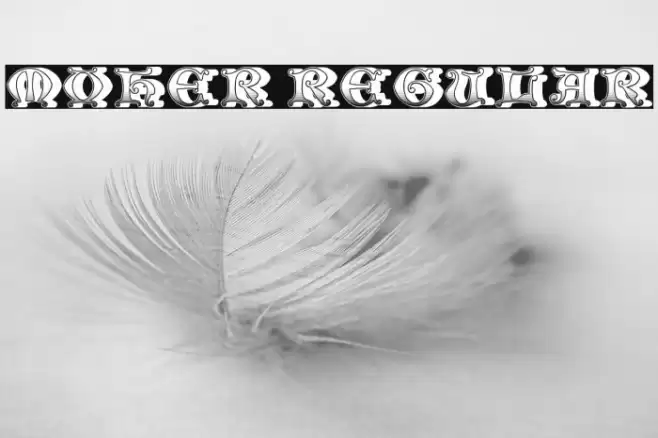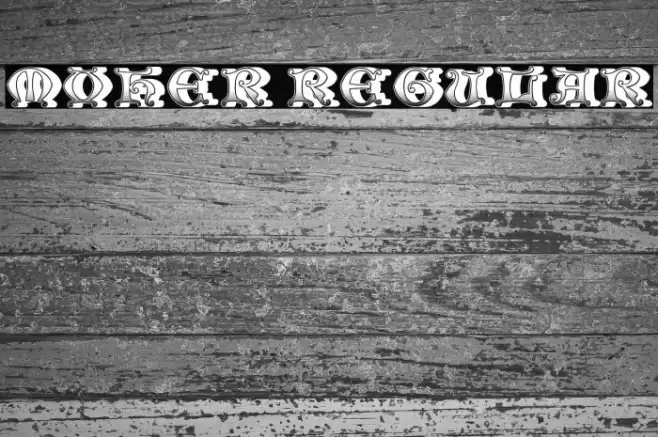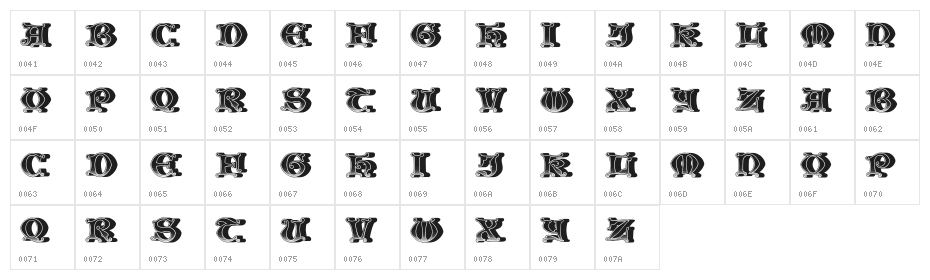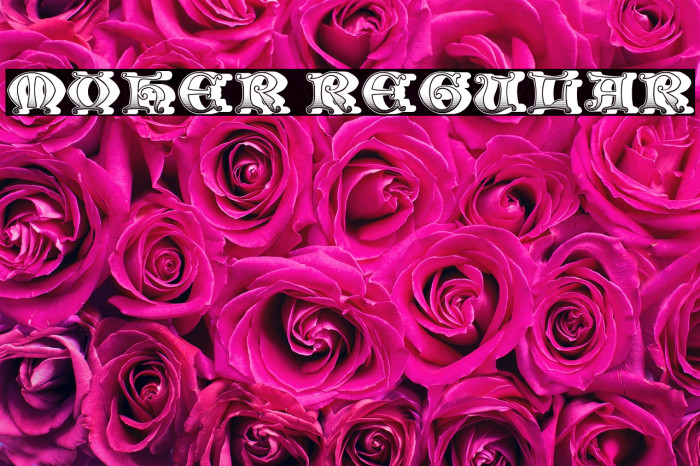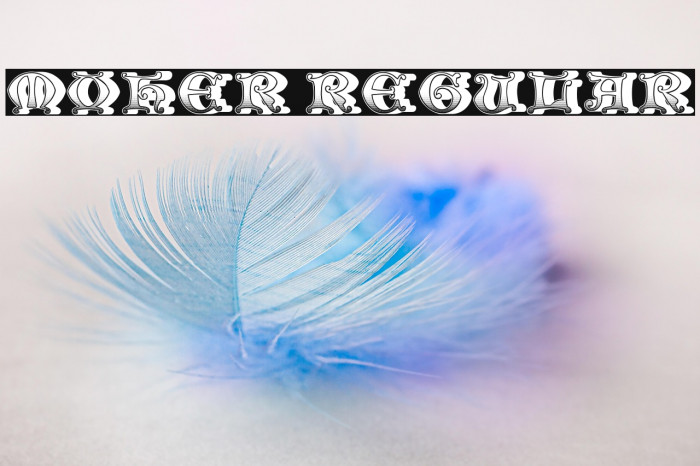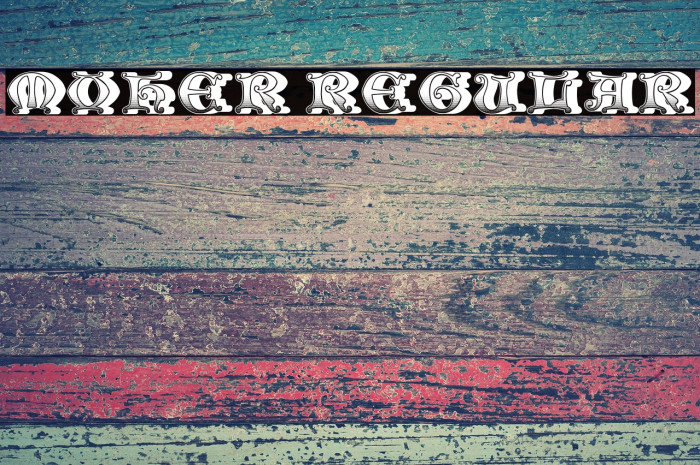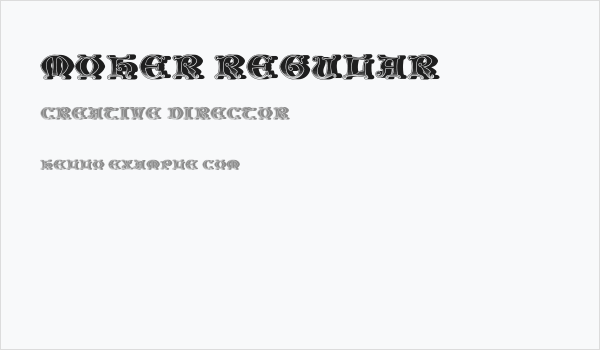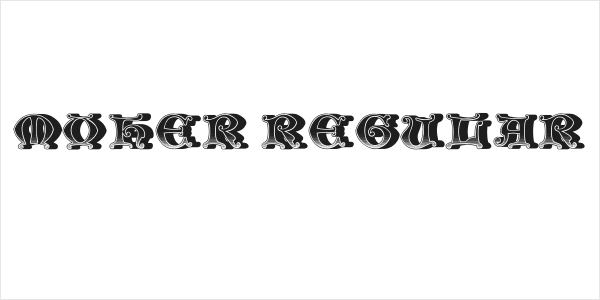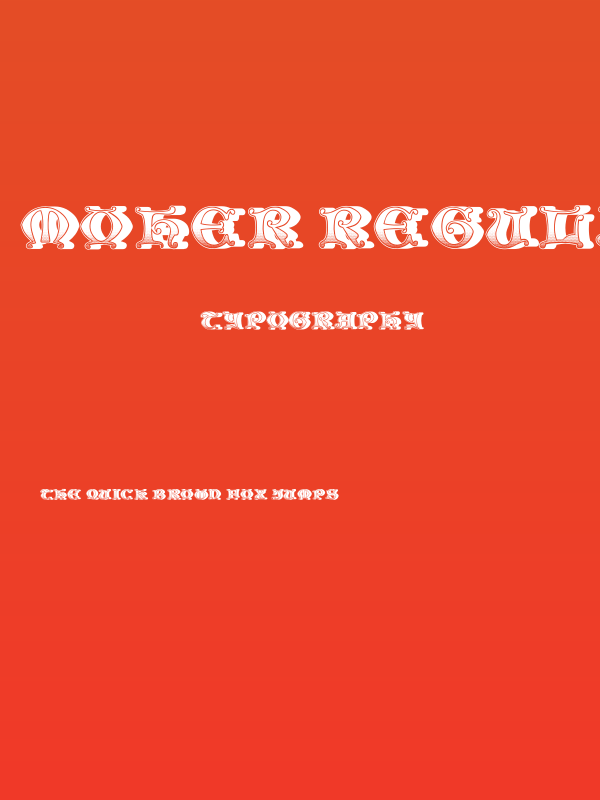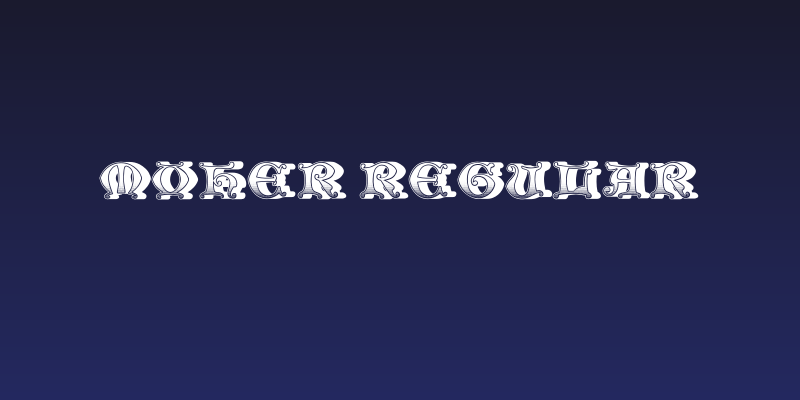
Moher Regular Font
Moher Regular Description
This font features an ornate and decorative style, characterized by intricate detailing and bold, elaborate serifs. The letters are embellished with flourishes and patterns that give them a distinct, vintage appearance. The overall design is reminiscent of traditional Victorian or Western typography, making it stand out with its unique and artistic flair. The uppercase letters are particularly striking, with their bold presence and intricate design elements that add depth and character. This font is perfect for projects that require a touch of elegance and historical charm.
An ornate, decorative font with intricate detailing and a vintage flair from Uncategorized fonts.
- Proposed Projects: Ideal for vintage-themed posters, invitations, branding for historical events, or any project needing a classic, decorative touch.
- Overall Style: Vintage